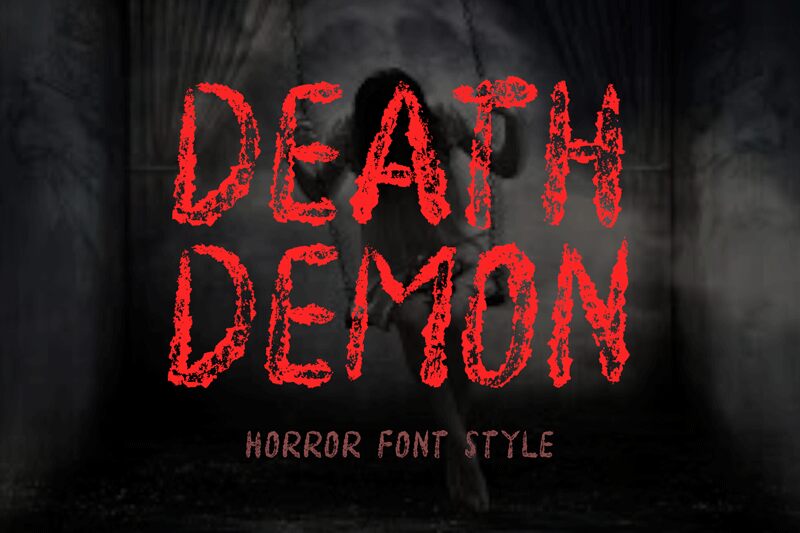
Death Demon by Yoga Letter is a spine-chilling horror font, exuding an aura of dark and enigmatic energy. With its bold weight, this font is ideal for capturing the spirit of Halloween and adding an eerie touch to any project.
Its twisted design lends itself perfectly to movie titles, book titles, Halloween party invitations, or anything that requires a devilishly scary aesthetic. Let "Death Demon" unleash its macabre charm and infuse your creations with an unforgettable sense of dread and mystery.